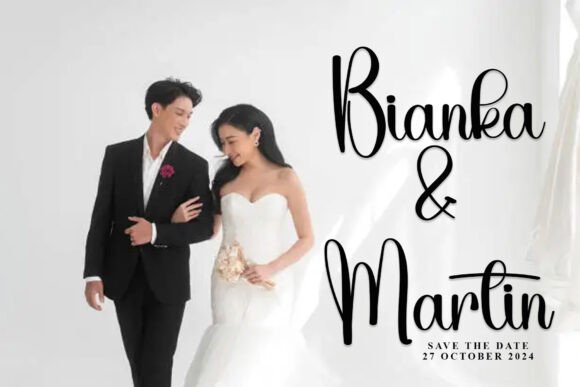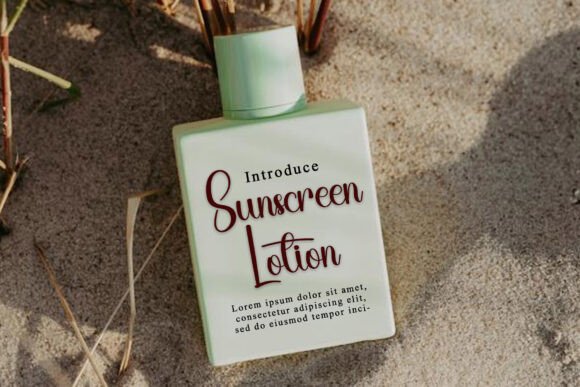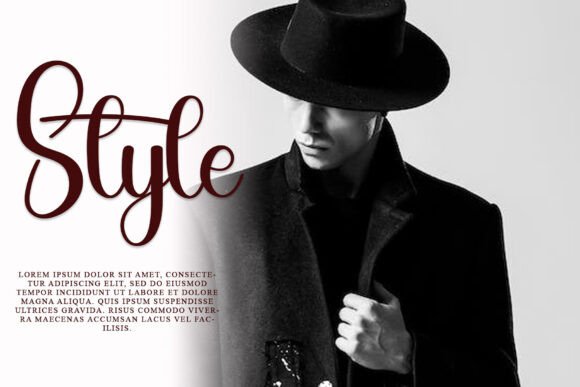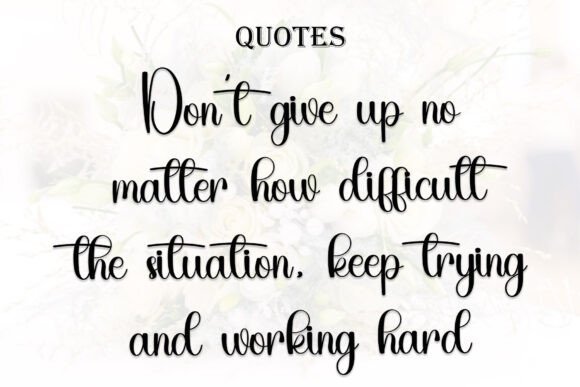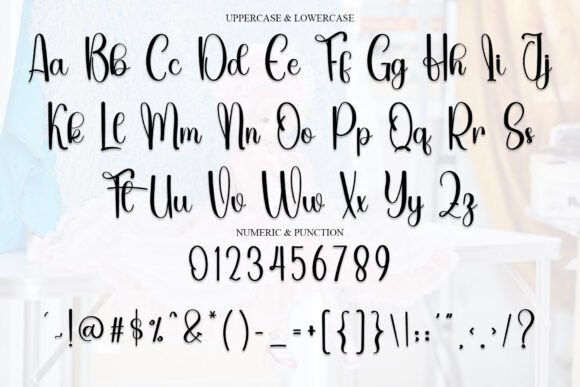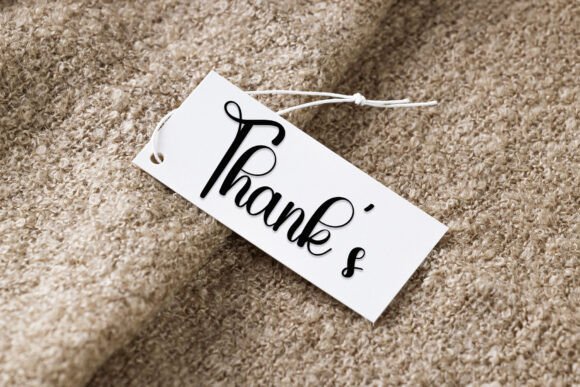
Introducing Beautiful Barbie: The Charming Handwritten Font for Your Design Needs
Are you a designer or crafter looking for a font that embodies freshness, casual elegance, and a laid-back vibe? Look no further than Beautiful Barbie, a charming handwritten font that’s perfect for a variety of design projects. In this article, we’ll dive into the features and benefits of Beautiful Barbie, and explore how you can use it to elevate your designs.
What is Beautiful Barbie?
Beautiful Barbie is a carefully crafted handwritten font that exudes a sense of warmth and personality. Its fluid strokes and organic lines create a natural, effortless look that’s perfect for designs that require a touch of elegance and sophistication. Whether you’re working on a branding project, creating invitations, or designing social media graphics, Beautiful Barbie is the perfect choice.
Key Features of Beautiful Barbie
- Fluid Strokes: Beautiful Barbie’s fluid strokes give it a natural, handwritten look that’s perfect for designs that require a personal touch.
- Organic Lines: The font’s organic lines add a touch of elegance and sophistication, making it perfect for a variety of design projects.
- Casual Elegance: Beautiful Barbie’s casual elegance makes it perfect for designs that require a laid-back vibe, such as social media graphics and invitations.
- Warmth and Personality: The font’s warm and personality-filled design makes it perfect for branding projects that require a human touch.
Uses for Beautiful Barbie
Beautiful Barbie is a versatile font that can be used for a variety of design projects, including:
- Branding: Use Beautiful Barbie to create a unique and memorable brand identity that stands out from the crowd.
- Invitations: Add a touch of elegance and sophistication to your invitations with Beautiful Barbie.
- Social Media Graphics: Use Beautiful Barbie to create eye-catching social media graphics that showcase your brand’s personality.
- Packaging: Beautiful Barbie is perfect for packaging designs that require a touch of elegance and sophistication.
Tips for Using Beautiful Barbie
Here are some tips for getting the most out of Beautiful Barbie:
- Use it with a clean sans-serif font: Pair Beautiful Barbie with a clean sans-serif font to create a striking contrast that adds visual interest to your design.
- Experiment with colors: Beautiful Barbie looks great in a variety of colors, so don’t be afraid to experiment and find the perfect hue for your design.
- Use it sparingly: While Beautiful Barbie is a beautiful font, it can be overwhelming if used too much. Use it sparingly to create a sense of hierarchy and visual interest in your design.
Beautiful Barbie is a charming handwritten font that’s perfect for designers and crafters looking for a fresh and elegant way to express themselves. With its fluid strokes, organic lines, and casual elegance, Beautiful Barbie is the perfect choice for a variety of design projects. Whether you’re working on a branding project, creating invitations, or designing social media graphics, Beautiful Barbie is sure to add a touch of warmth and personality to your designs.